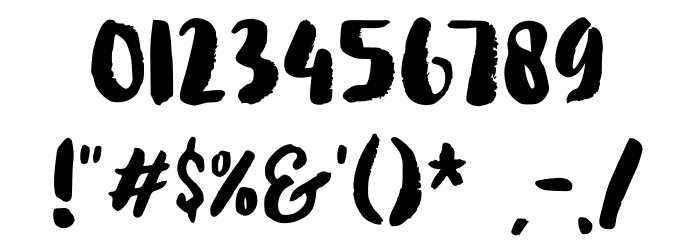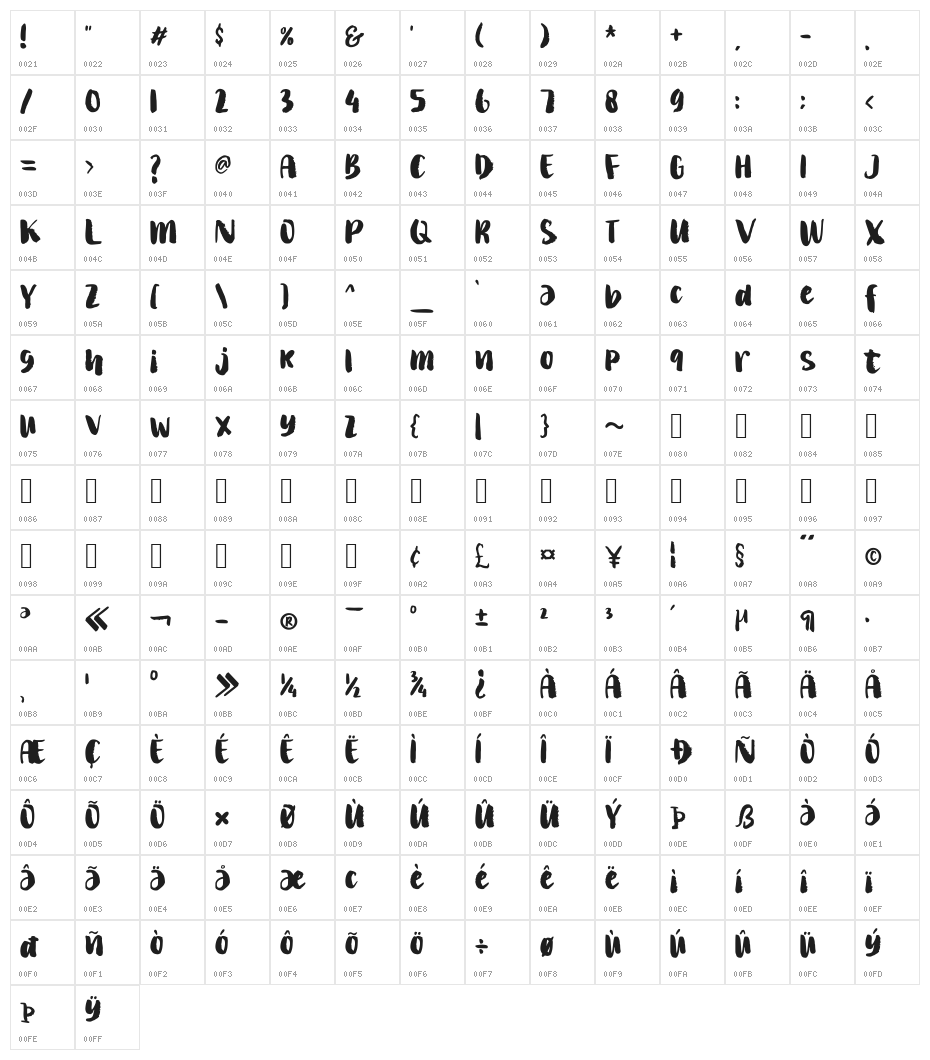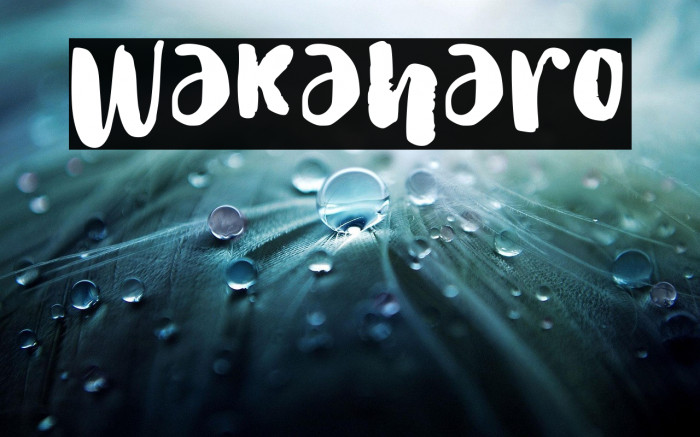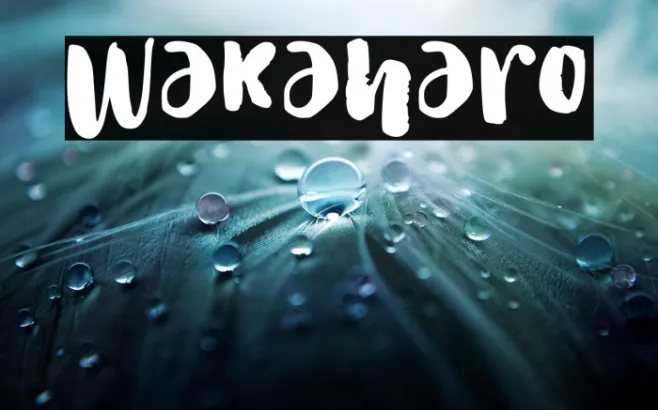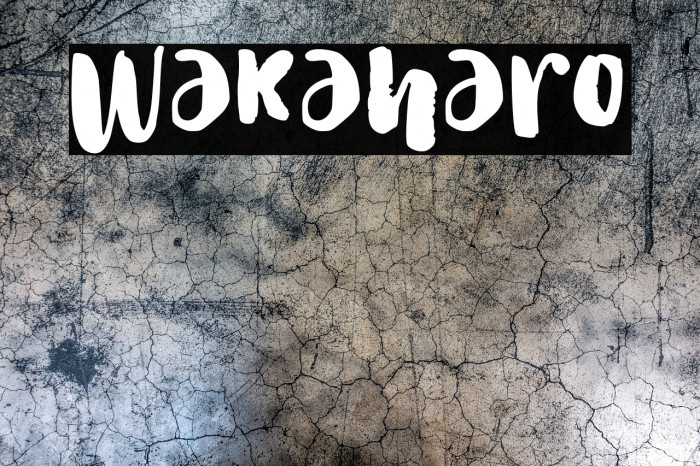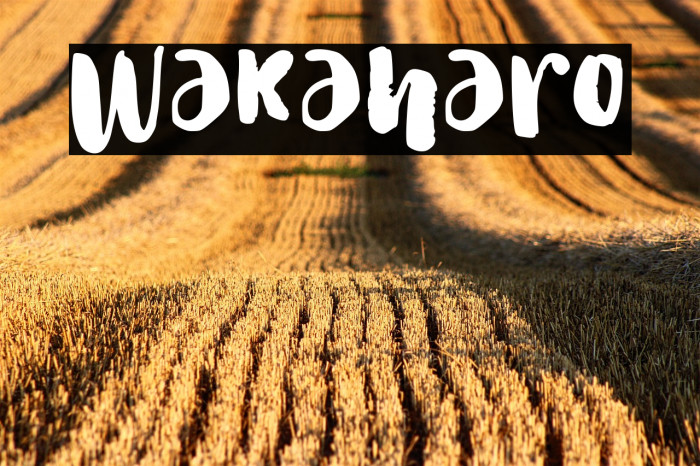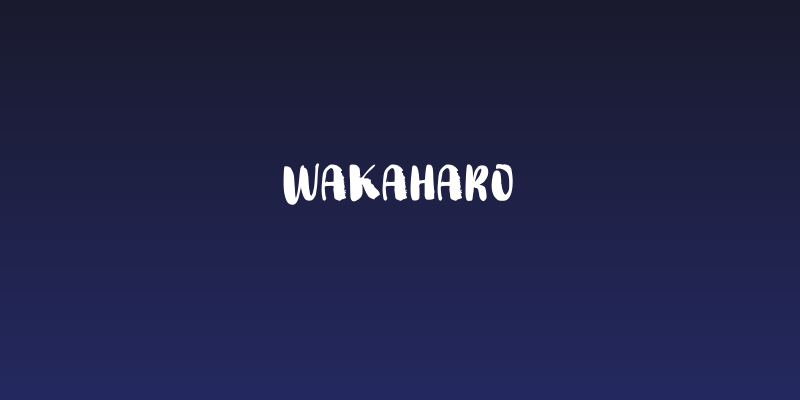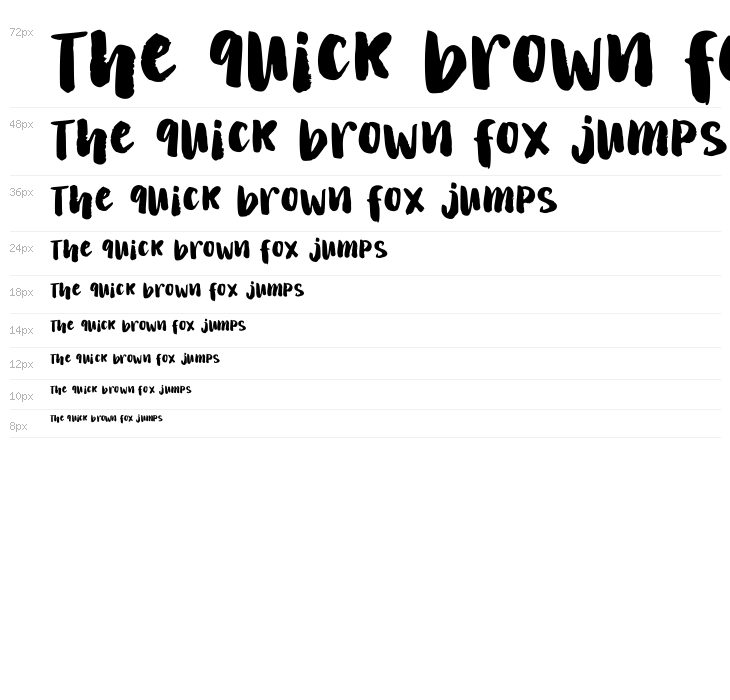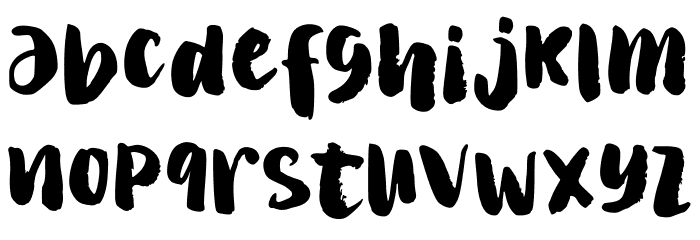
Wakaharo Font
Wakaharo Description
This font features a bold, brush-like appearance with a hand-painted aesthetic. The strokes are thick and uneven, giving it a dynamic and energetic feel. The uppercase and lowercase letters maintain a consistent style, with rounded edges and a slightly irregular baseline that adds to its casual and artistic charm. The numbers and special characters follow the same design principles, ensuring a cohesive look throughout. This font is ideal for projects that require a personal touch or a creative flair, such as posters, invitations, or branding materials.